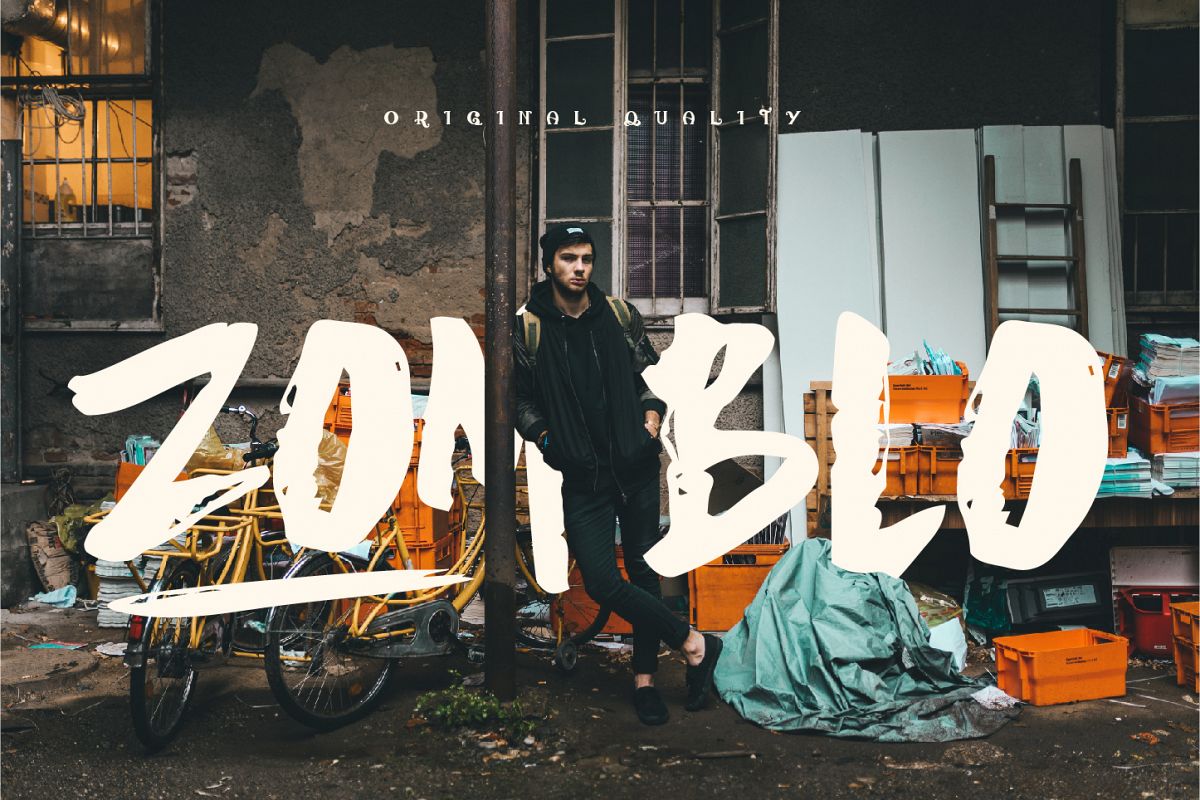
Zomblo
Zomblo is hand painted typeface designed to help you to create the look of messy, rough, strong, grunge for any designs requirements.
Zomblo comes with uppercase & lowercase characters, punctuation, numerals, and ligatures.